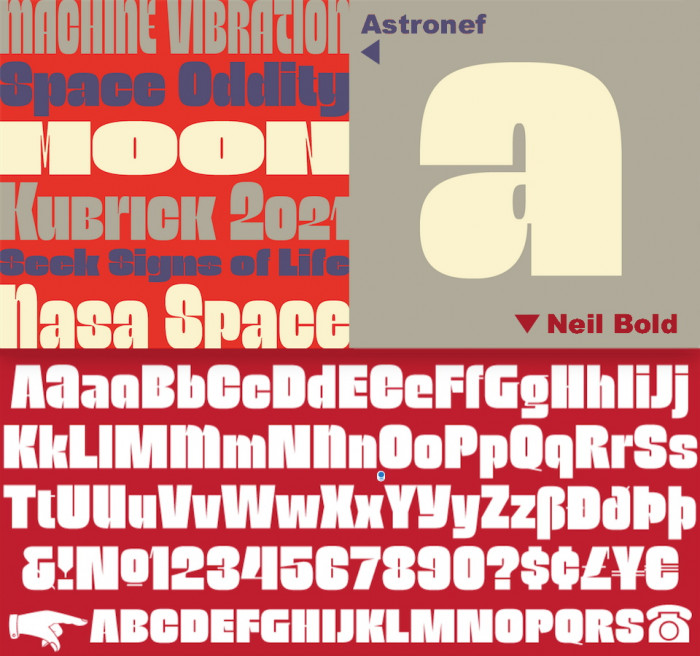
Unicase with alternates. I've used Astronef Super (by excellent typographer JF Porchez) and others like Neil Bold (by the inspirer Wayne Stettler) as a starting reference, but I've redesigned the general aspect of all the glyphs and added a lot of new details, which makes this font quite different and special. I like to review and get a personal second look at some already released fonts, and I like to do this in FS. Thanks again for support me and understand that.
Absolutely in love with the letterforms, but am not sure about the extra marks...
Are you making an alt version without the marks?
@frongile: Thanks a lot, pal. The idea of removing scratches from the letters had crossed my mind, so your opinion inclines me to do it.
This is such a nice font. It would have easily won the Heavycomp, IMHO. I don't know how you managed to construct the new cedilla with the curved connection, but it looks beautiful.
Ohh. So clever. I would have never thought of doing it like this. You're awesome.